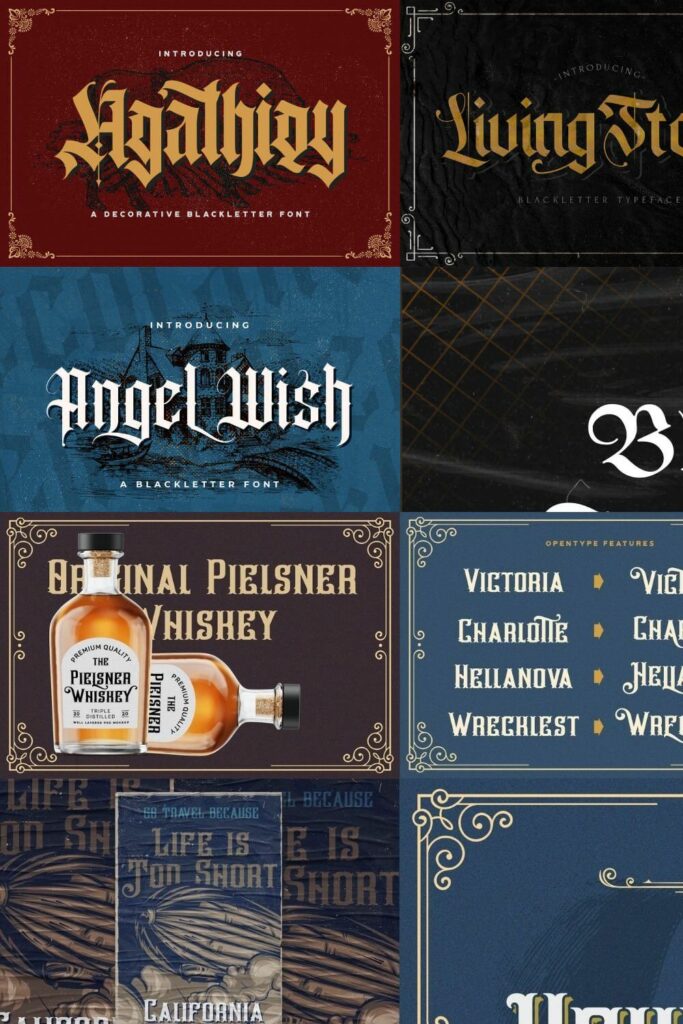
Blackletter Font Bundle Vol 1
Blackletter Font Bundle Vol 1 This font bundle contains 12 high quality blackletter, victorian, or gothic fonts with many variation styles. this font bundle also has a vintage style that will make your design look outstanding and cool. One seat lets one person use the licensed asset—get more if multiple people need access. common use cases include headings and text blocks on websites. suitable for those who will be using the font in e books, magazines, interactive pdfs, or other publications.
Blackletter Font Bundle Vol 2 This font bundle contains 12 high quality blackletter, victorian, or gothic fonts with many variation styles. this font bundle also has a vintage style that will make your design look outstanding and cool. This is new blackletter font bundle, including my latest 8 fonts and all graphic elements for just 70% of the original value!!! blackletter font bundle is suitable font for many creative products & designs. This font bundle contains 12 high quality blackletter, victorian, or gothic fonts with many variation styles. this font bundle also has a vintage style that will make your design look outstanding and cool. This time we provide bundle packages for 12 of our best fonts, at prices that are quite cheap compared to others. not because it's cheap, but because it's all about pampering all art lovers. the bundle consists of several fonts including: victorian blackletter metal fonts gothic fonts oldenglish so it can be used for your various needs. With this font bundle, you'll have everything you need to elevate your designs and stand out from the crowd. try mixing and matching the fonts to create unique combinations and add even more visual interest to your projects. Sourced from thousands of exceptional typographers and designers worldwide, our extensive library features exclusive typefaces, script fonts, sans serifs, decorative fonts, svgs, sublimation designs and more.